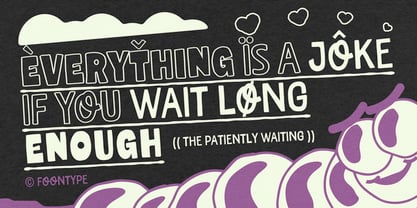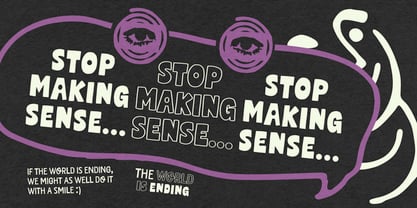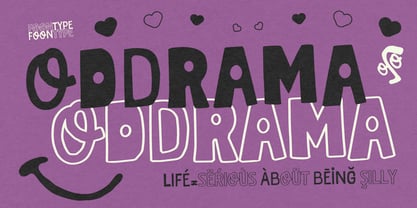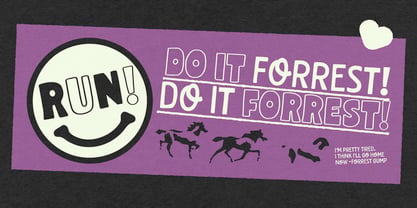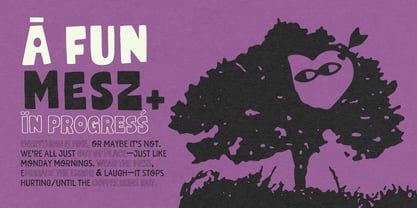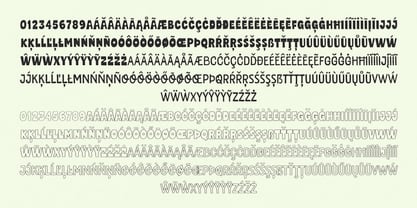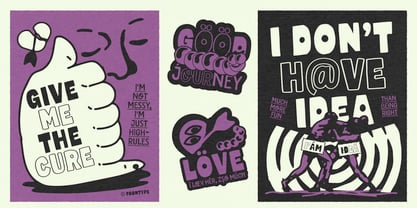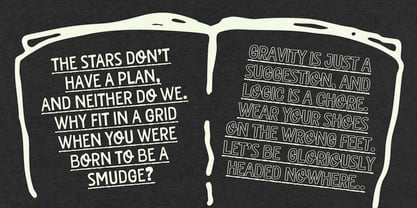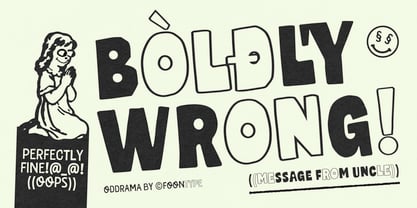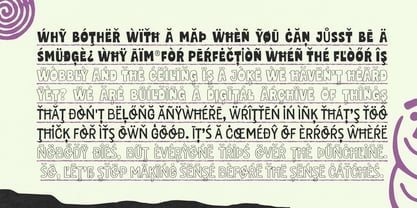
FN Oddrama
by Typefoon
The FN Oddrama Font Family was designed by Steve Laorence and published by Typefoon. FN Oddrama contains 2 styles and family package options. More about this family
Oddrama is a playful display font bursting with quirky personality, cheerful energy, and hand-drawn charm. Designed to bring a sense of fun and spontaneity to your projects, Oddrama features bold, irregular letterforms that feel expressive, friendly, and full of character. Perfect for children's books and educational materials, playful branding and logos or packaging design.
Designers: Steve Laorence
Foundry: Typefoon